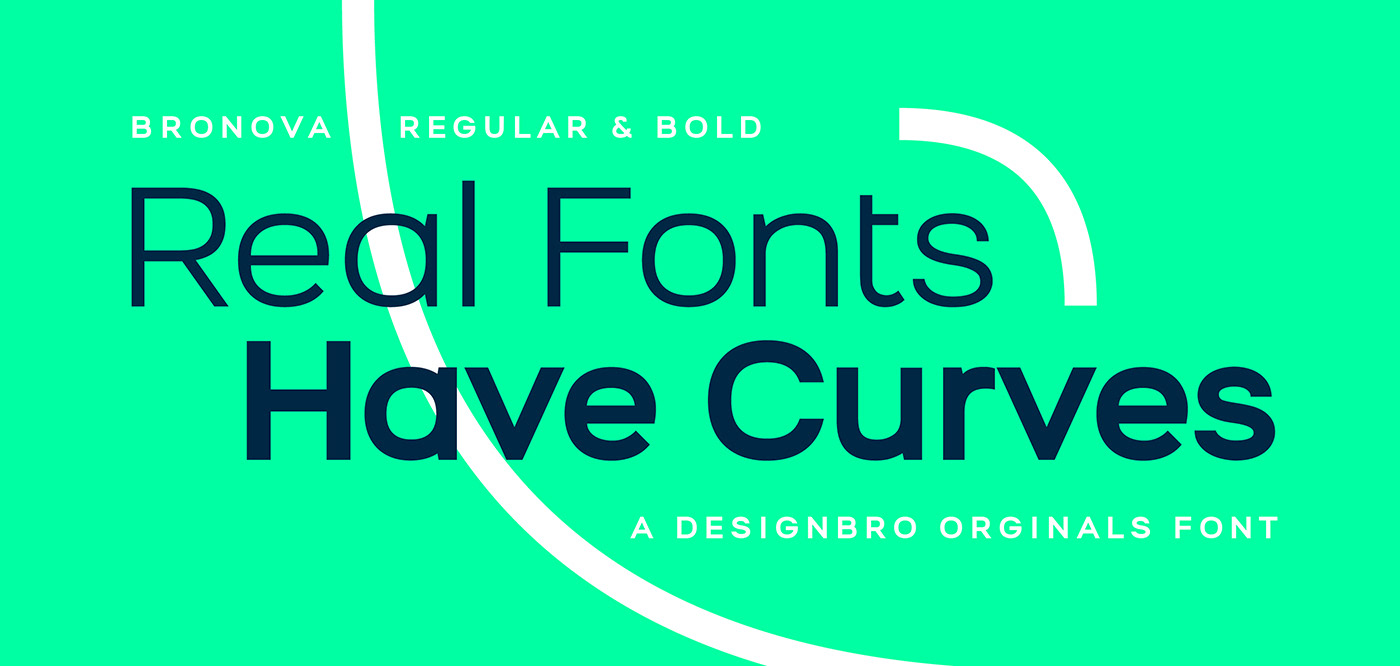
Introducing Bronova
Regular & Bold
The Bronova is a free (for commercial use), sans serif, DesignBro Originals font and is based on the natural line that occurs when drawing a curve from the wrist. The project has been licensed under the SIL Open Font License, making it open source and available to all.
Bronova Font Details
The image below shows the difference between the ending of the curve (going into a straight line) that was used in the Bronova font and a ‘machine-made’ curve. Take a close look and see that the transition from the curve into a straight line is much smoother on our ‘Bronova curve’.
The curve can be simulated in Adobe Illustrator by creating
a wire mesh using the blend tool by following the steps:
1. Draw a vertical line in Adobe Illustrator
2. • Copy the line
• Rotate the line 90° CCW
• Place the left anchor point on the bottom anchor point of the vertical line
3. Connect the lines using the ‘blend tool’ (w)
4. • Double click the ‘blend tool’ icon in the toolbar
• Select ‘Specified steps’ in the ‘Spacing:’ dropdown menu and add lines until the curve appears.